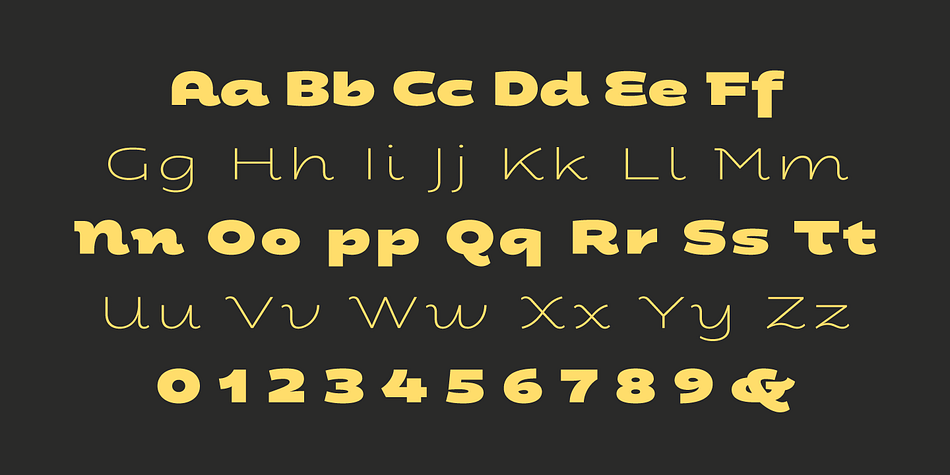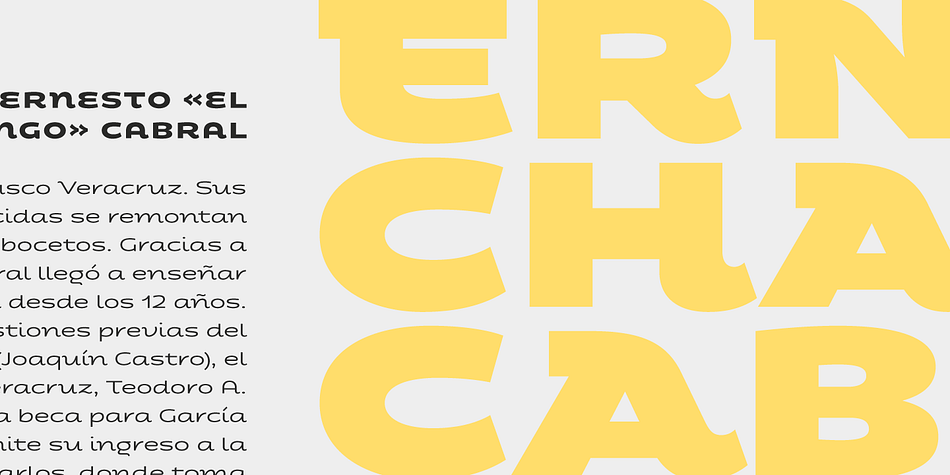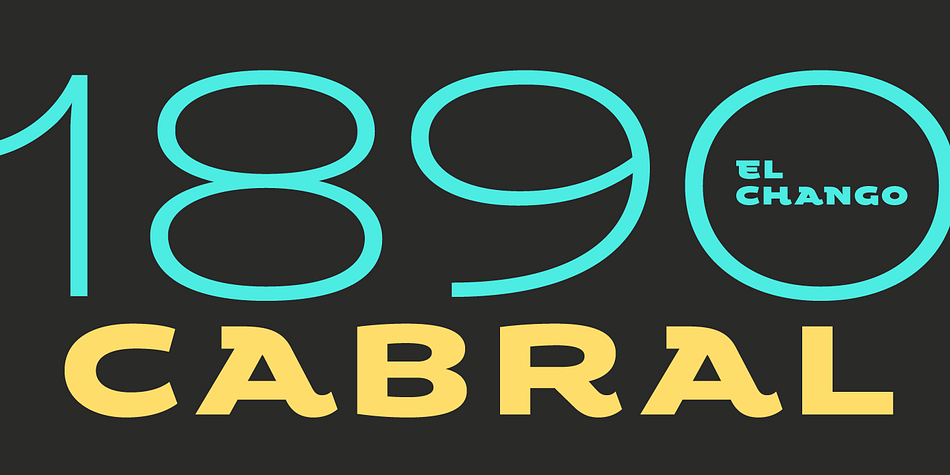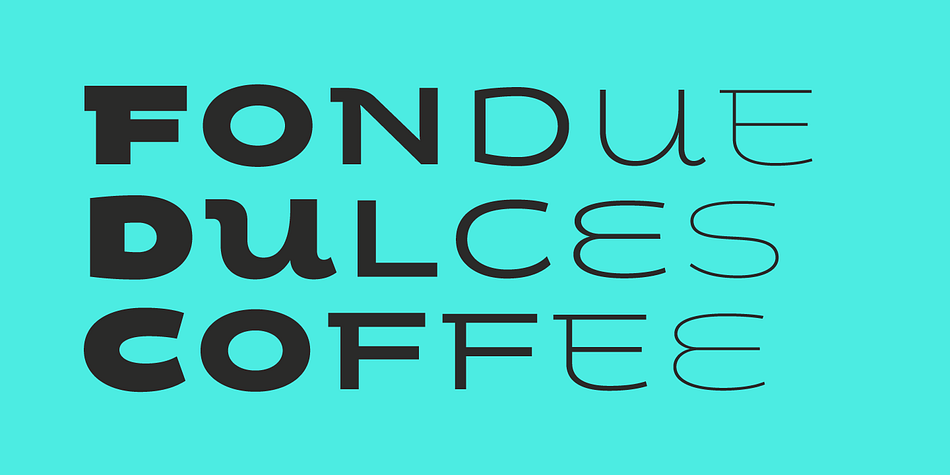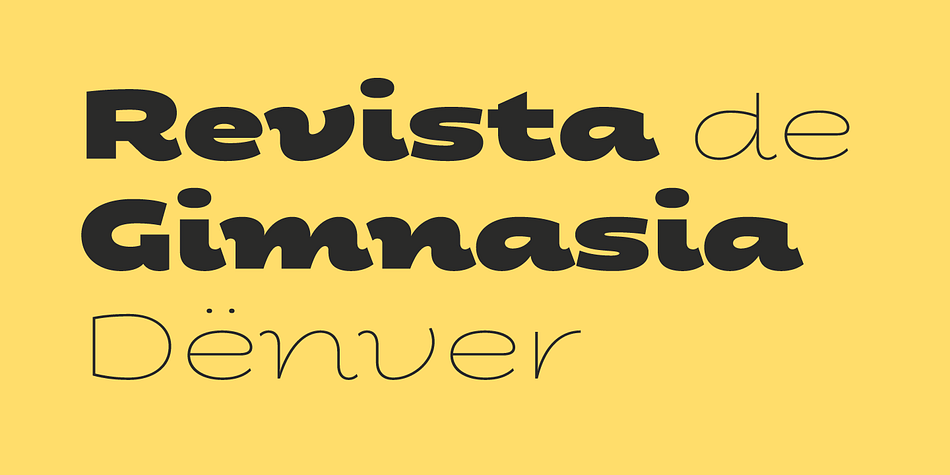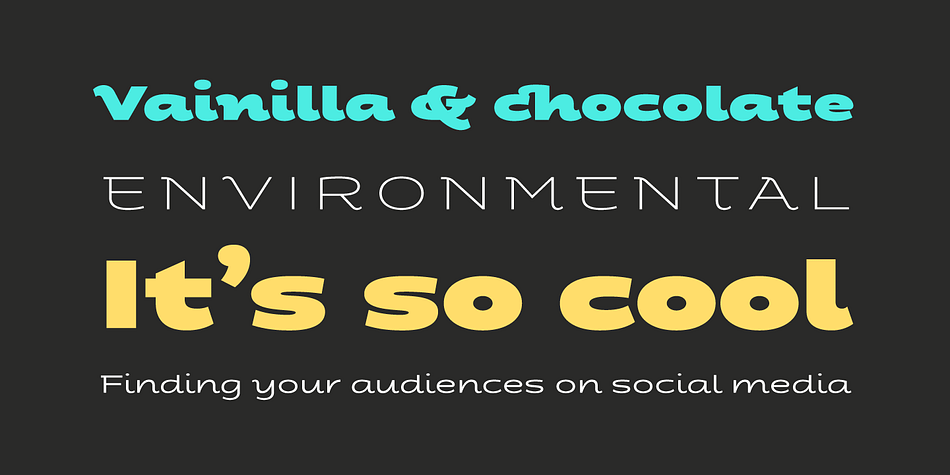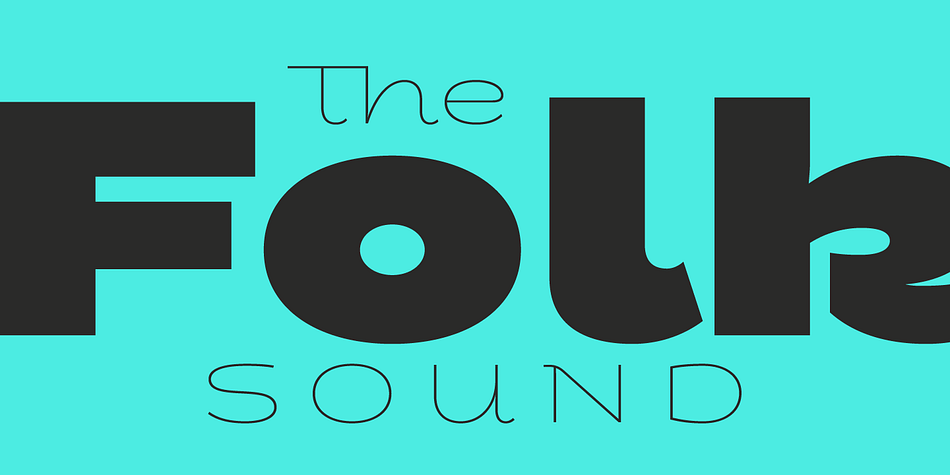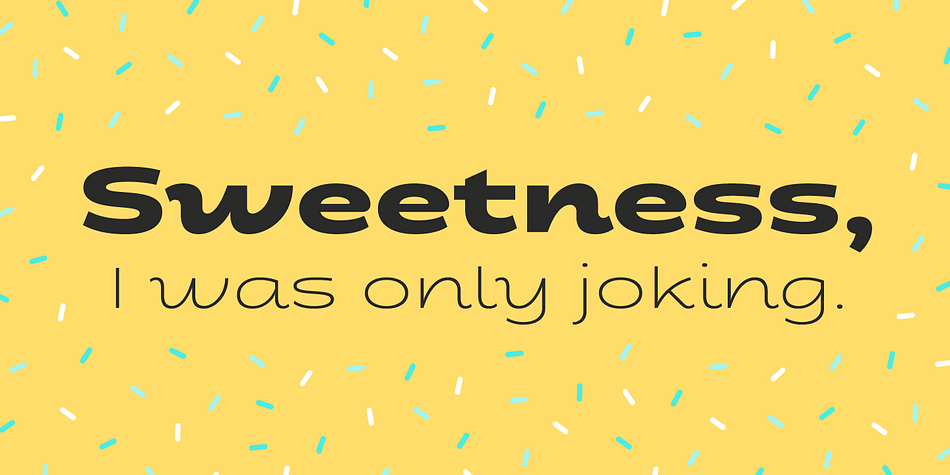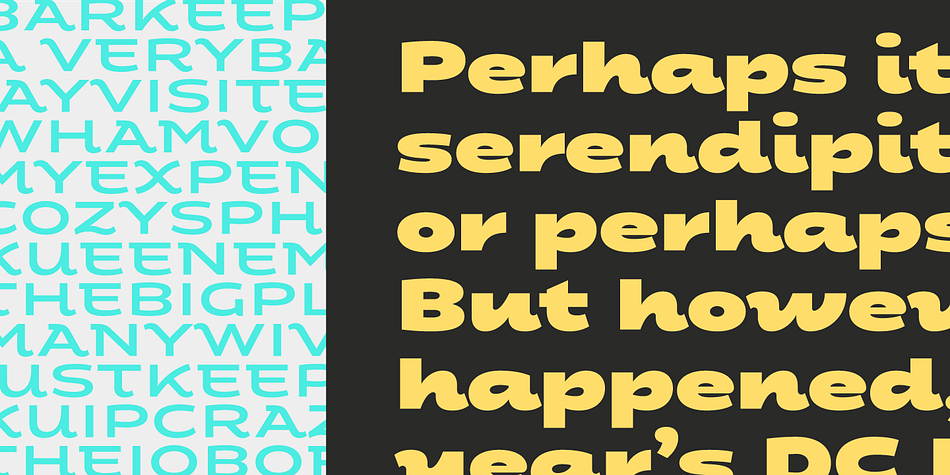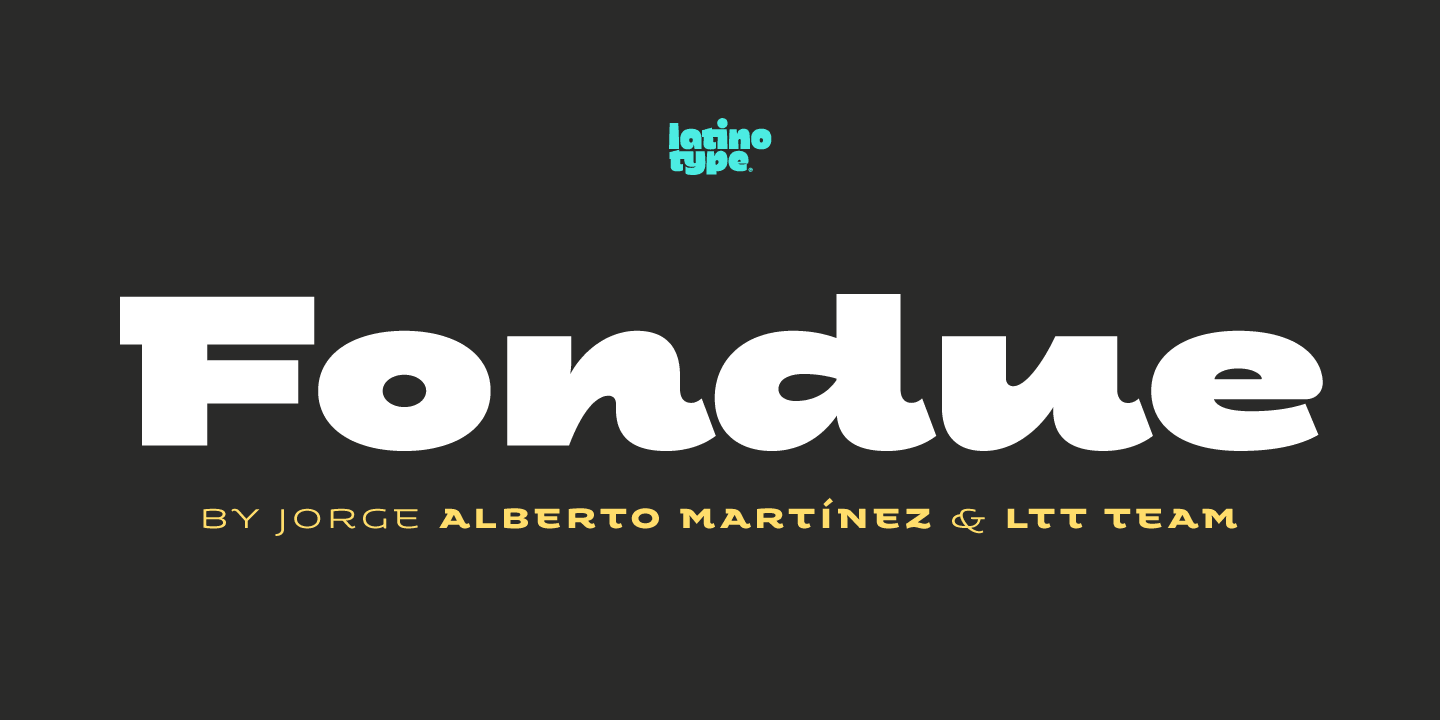
Designed by Jorge Alberto Martínez and Latinotype Team, Fondue is a sans serif font family. This typeface has six styles and was published by Latinotype.
Fondue is a type family of eclectic shapes, inspired by Art Deco designs, in particular, the lettering used by the Mexican cartoonist Ernesto “El Chango” Cabral on almost the entire publication Revista de Revistas (“Magazine of Magazines”). Far from being a copy, Fondue expects to be an adaptation of the thinking of that time to be used in contemporary context.
Fondue has a cursive ductus, wide horizontal proportion and large x-height. Its friendly consistent rhythm makes it ideal for medium-sized text, headlines, branding, and so on.
The family comes in 6 weights, from Thin, which reminds of the cartoonist’s loose strokes, to Ultra Bold, the version with powerful and unique voice. Fondue has a set of 496 characters that support 207 different languages. OpenType features include standard and discretionary ligatures as well as stylistic alternates.